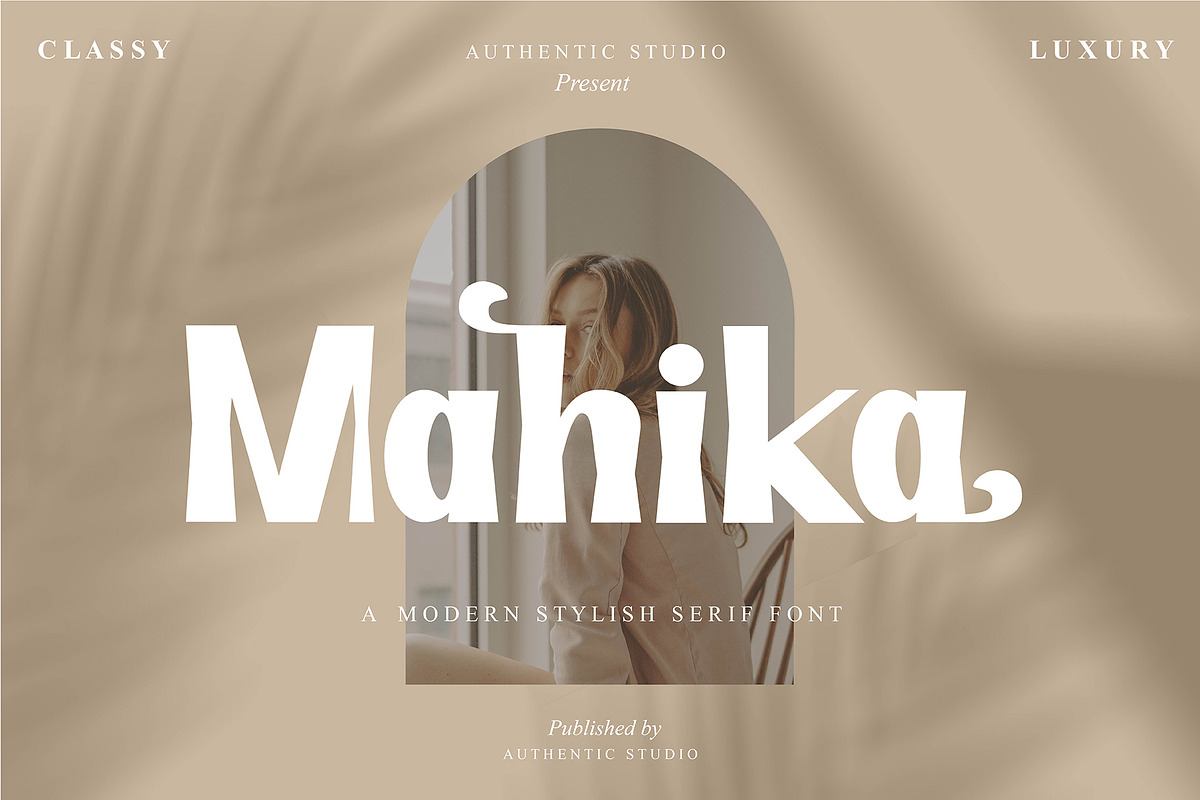
Mahika Modern Serif Font Free Download is a refined and stylish typeface that blends classic serif elegance with a contemporary twist. With high-contrast strokes, graceful curves, and distinctive character shapes, Mahika is perfect for luxury branding, editorial design, wedding stationery, packaging, and high-end social media graphics. It brings a touch of sophistication and modern beauty to any layout.
Using the Mahika Modern Serif Font Free Download allows you to craft designs that feel upscale, polished, and artistic. Whether you're working on a fashion magazine cover, a chic logo, or a minimalist web banner, Mahika delivers a unique balance of tradition and trend.